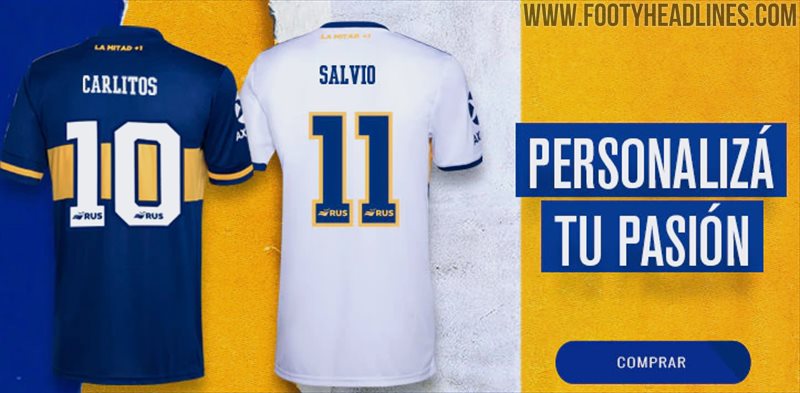
Adidas Boca Juniors 2020 Kit Font Released
Adidas has designed a bespoke typeface for the new Boca Juniors 2020 jerseys. Let us take a closer look at the new Boca Juniors 2020 jersey typeface.
Adidas Boca Juniors 2020 Kit Font
The new Adidas Boca Juniors 2020 jersey typeface features a very classic approach - the font is inspired by the typefaces of the 1970s and 1980s, when Adidas was first Boca Juniors kit maker.
The numbers on the home kit are white with a navy border, while the numbers on the away kit are blue with a yellow border.
Inside each number is the logo of Boca Juniors sponsor RUS (Rio Uruguay Seguros), an insurance company.